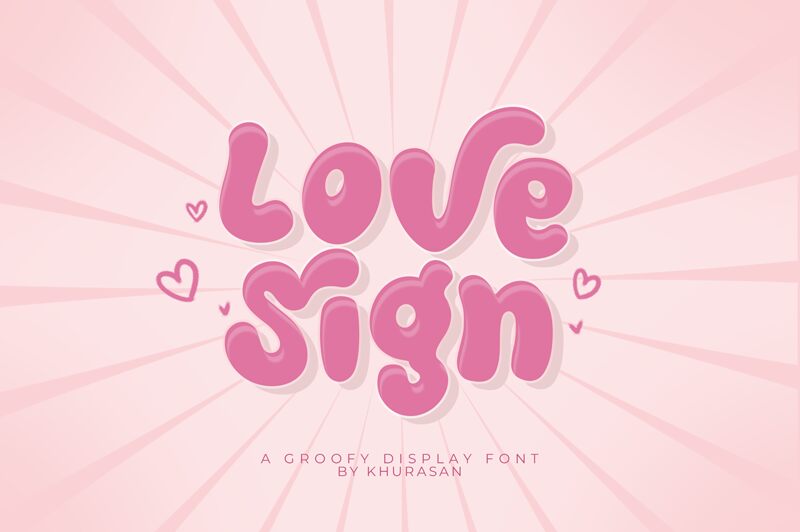
Love Sign
Love Sign by Khurasan is a bold and playful display font perfect for projects that demand a light-hearted, cartoon style. It's ideal for headlines, logos, and fun designs that need to stand out!